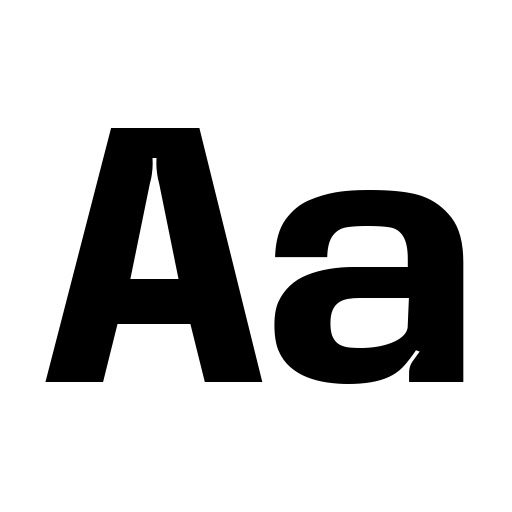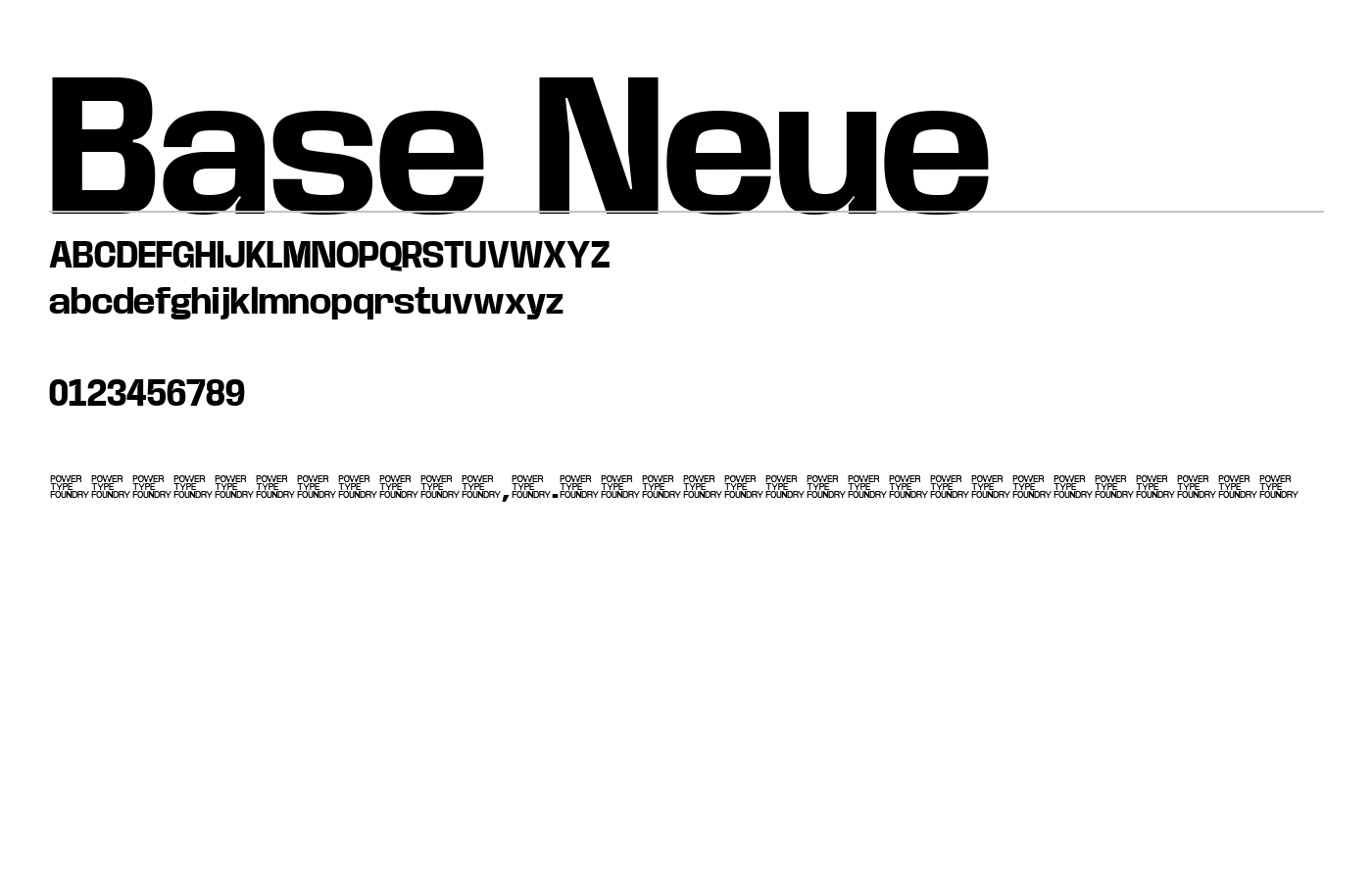
Base Neue is a bold, modern sans-serif font characterized by its clean, geometric shapes and strong, uniform strokes. Its high x-height and tight spacing give it a compact, impactful presence, making it ideal for headlines, branding, and logos that require a contemporary, confident look. This versatile font performs well in both digital and print contexts, lending a professional yet approachable tone to any design.
Base Neue Font
About Base Neue Font
| Font family | Base Neue Font |
| Designer | Teguh Arief |
| Trademark | Power Type™ Foundry |